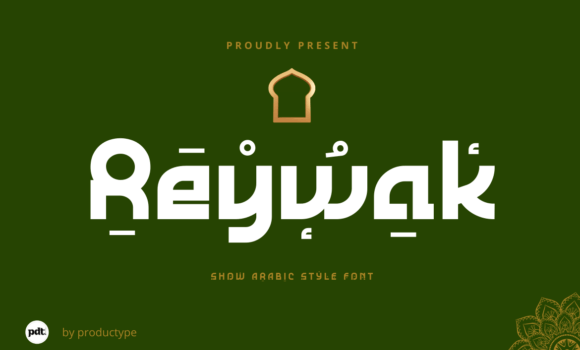
reywak
Reywak Font - Featured Image
Reywak Font – Free Download Introduction to Reywak Font Reywak is an impactful new font that merges the clean look of sans-serif fonts with the powerful symbolism of Arabic characters. 📸 Preview Gallery 6 images 📌 Product Name Reywak Font